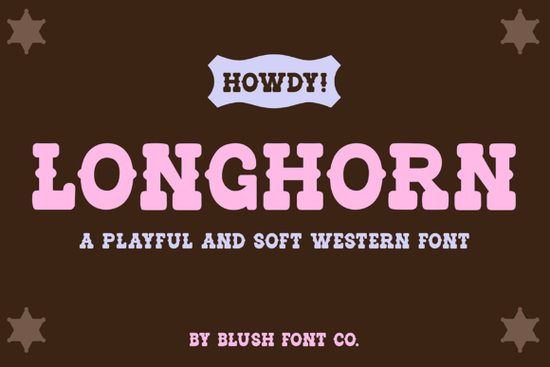
The Longhorn Western Font is a versatile typeface that brings a bold, vintage-inspired western vibe to any design project. Whether you're creating t-shirt graphics, branding for a boutique, or social media visuals, this font adds a playful yet polished look that feels both modern and classic. Its chunky letterforms and rounded edges make it ideal for a range of applications, from apparel to packaging and beyond.
If you're looking for a font that combines the charm of old-west aesthetics with a contemporary edge, the Longhorn Western Font could be just what you need. It's especially well-suited for small businesses, crafters, and designers who want to infuse their work with a sense of nostalgia and personality. The soft curves and strong shapes make it easy to read while still standing out as a unique display font.
What Makes the Longhorn Western Font Stand Out?
The Longhorn Western Font is designed with a focus on balance between retro charm and modern usability. Its rounded edges give it a friendly, approachable feel, while the bold strokes add visual impact. This combination makes it perfect for projects that require a strong visual presence without sacrificing readability.
One of the key strengths of this font is its adaptability. It works well in both digital and print formats, making it a great choice for everything from SVG projects to sublimation printing. Its versatility means it can be used across multiple platforms, including social media graphics, invitations, and even farmhouse decor.
Best Uses for the Longhorn Western Font
This font shines in a variety of creative applications. For example, it’s a popular choice for t-shirt designs, especially for those targeting a western or country-themed audience. It also pairs well with other fonts like Lover Roses Font or Olde Victorian Font, allowing for layered and dynamic typography setups.
For small business owners, the Longhorn Western Font can help create a consistent brand identity that feels authentic and eye-catching. It’s particularly useful for businesses in the fashion, event planning, or home décor industries. You might also find it handy for designing stickers, mugs, and tote bags that appeal to customers who love rustic or cowboy-style aesthetics.
How to Use the Longhorn Western Font Effectively
To get the most out of the Longhorn Western Font, consider pairing it with simpler typefaces for contrast. This helps prevent the design from feeling too busy while still maintaining a cohesive look. For instance, using it as a headline with a clean sans-serif font for body text can create a balanced and professional appearance.
When working with this font in design software, keep in mind that its bold style may require some spacing adjustments to ensure legibility. Testing it in different sizes and contexts will help you understand how it performs in real-world applications.
Whether you're a designer, crafter, or small business owner, the Longhorn Western Font provides a stylish and functional way to add a western flair to your projects. With its blend of vintage charm and modern design, it's a valuable addition to any creative toolkit.
Before finalizing your design, make sure to test the font in different sizes and layouts. This will help you achieve the best visual outcome while maintaining clarity and impact. If you're new to using display fonts, start with simple projects and gradually explore more complex designs as you become more familiar with its characteristics.